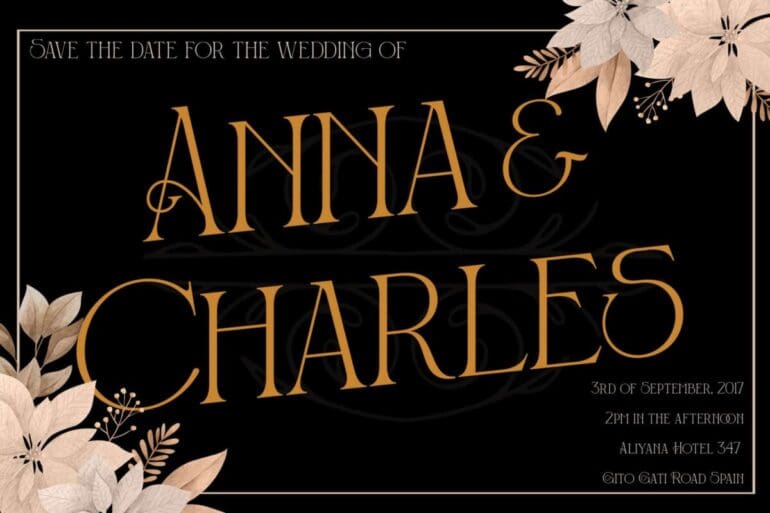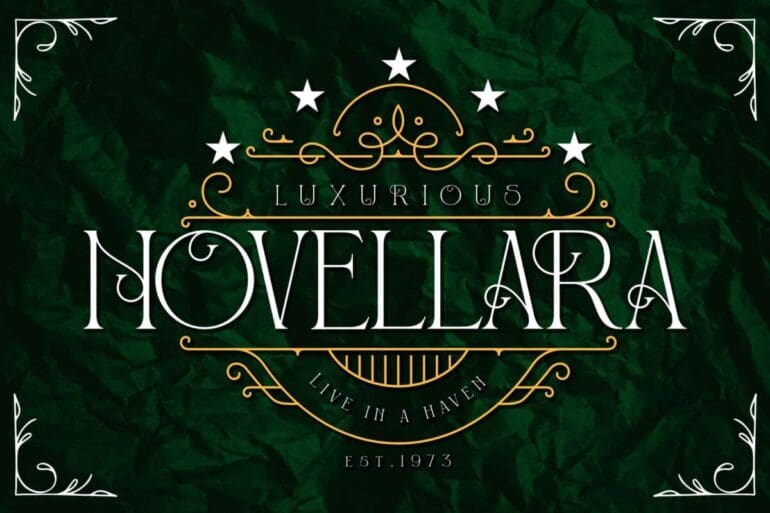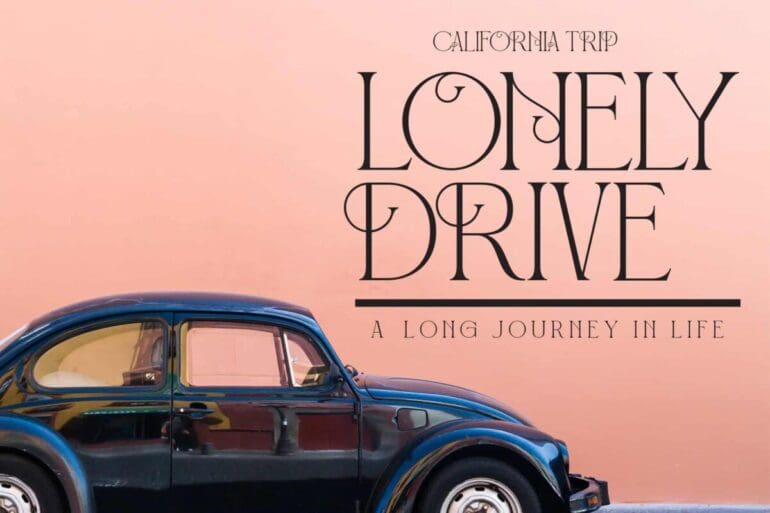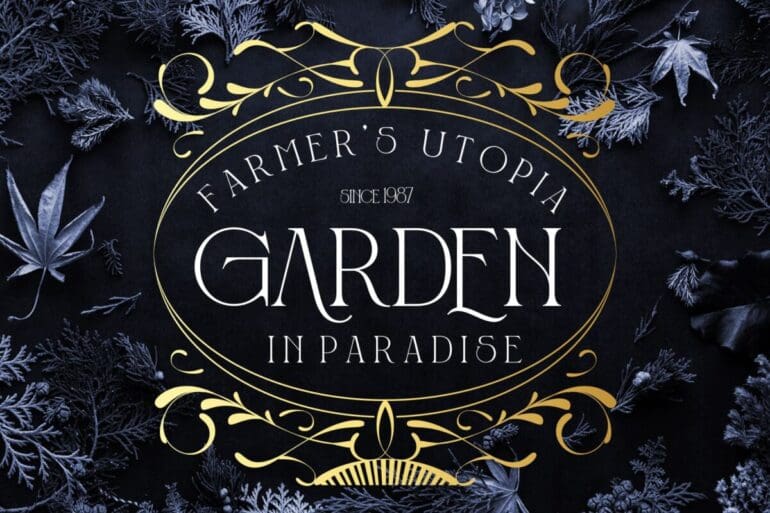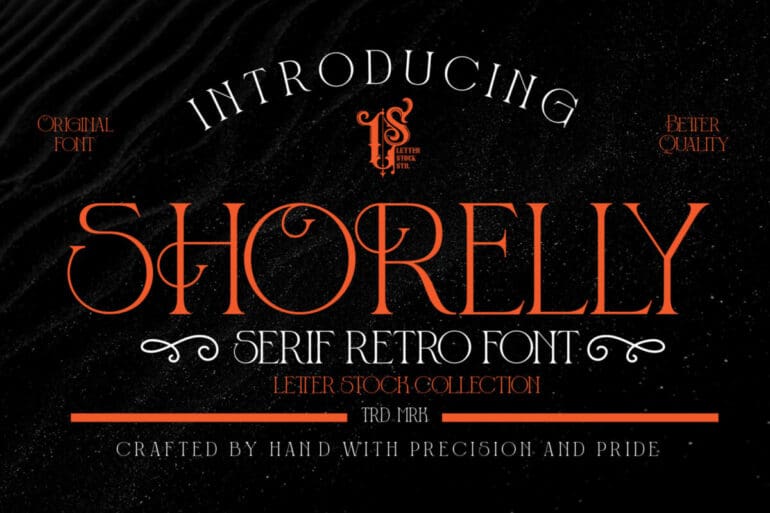
Shorelly Font
Shorelly Font. It was crafted by hand especially to add a natural handmade feeling in its brand identity then I make it clean with pentool.